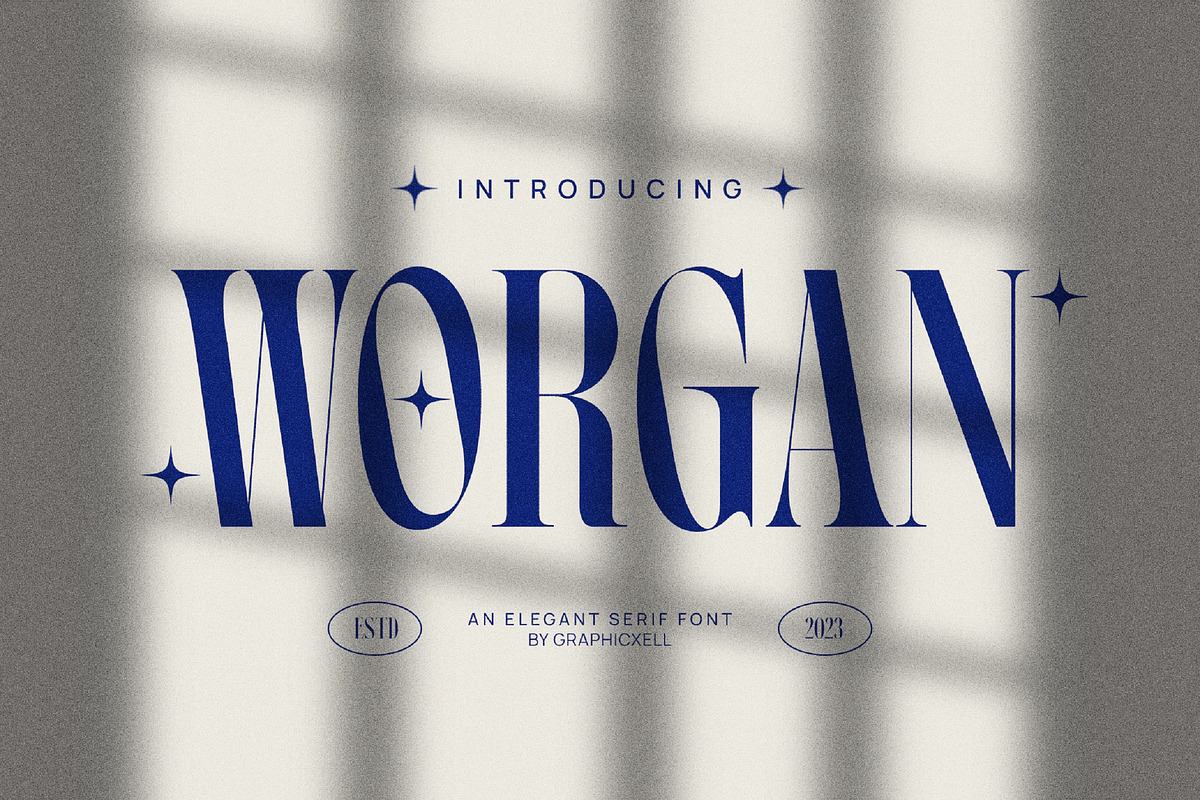
Worgan Elegant Serif Font Typeface Free Download
The Worgan Elegant Serif Font Typeface Free Download is the perfect choice for adding sophistication and style to your designs. This elegant serif font boasts a timeless design with refined letterforms, making it ideal for high-end branding, luxury websites, editorial layouts, and logos. Its bold yet graceful appearance adds a touch of class to any project, ensuring your typography stands out with a professional and polished look. Please note, to use this font for commercial purposes, a license purchase is required. However, you can download the Worgan Elegant Serif Font Typeface Free Download for free for personal use and test its versatility in your creative projects. Whether you're working on print or digital content, this font will give your work a sleek, upscale feel. Download the Worgan Elegant Serif Font Typeface Free Download today and elevate your designs with its stunning elegance.